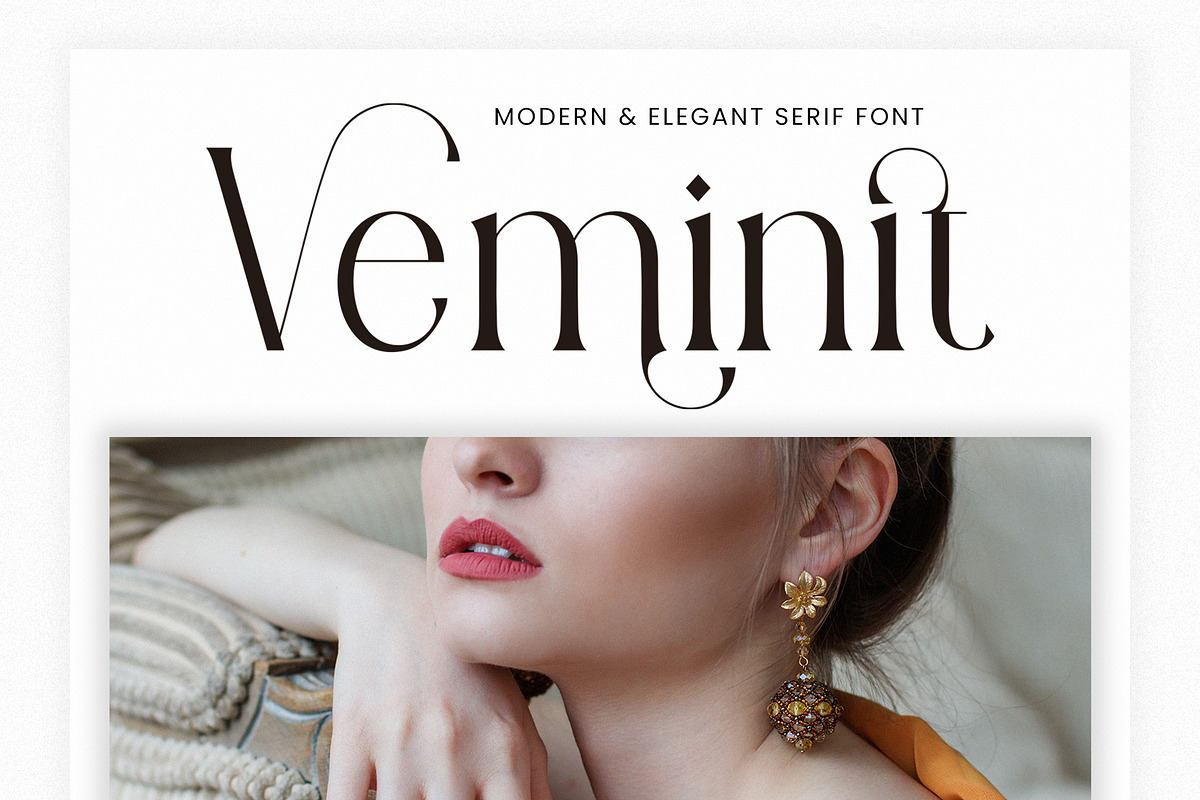
Please note that you must purchase this font for commercial use. You can download Veminit Elegant Serif Font for free, strictly for personal testing purposes only. Veminit is a sophisticated and stylish serif font designed with elegance in mind. Featuring high-contrast strokes, sharp serifs, and a refined, modern feel, Veminit Elegant Serif Font Free Download is perfect for high-end branding, luxury product packaging, editorial designs, invitations, and any project that requires a touch of class.
Its timeless design provides both readability and beauty, making it ideal for upscale branding, websites, and print materials. Veminit includes uppercase and lowercase letters, numerals, punctuation, and multilingual support, ensuring versatility for global creative projects.
Whether you're creating a refined brand identity or designing elegant marketing materials, Veminit brings sophistication and style to your typography.